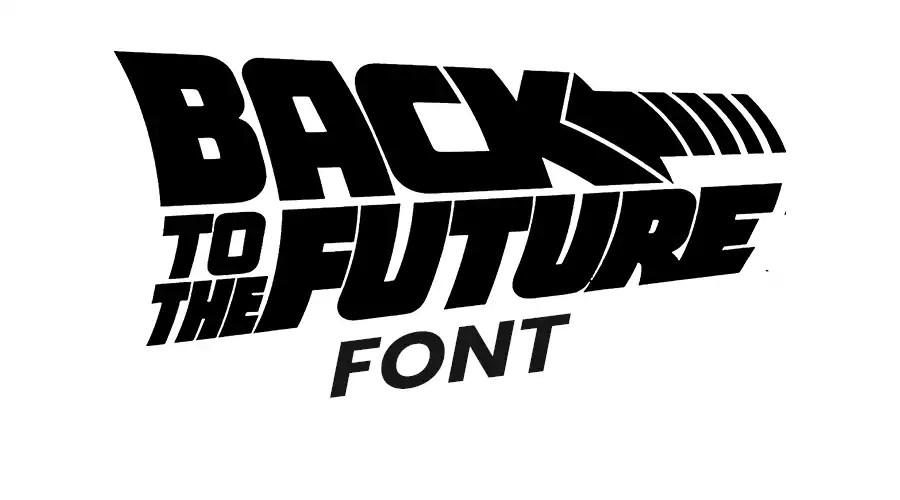
What Font Is Back To The Future . Back to the future 2002 font | dafont.com english français español deutsch italiano português. Download the font image for free and customize it with different styles, colors and backgrounds. What font was used in back to the future logo and posters? Download the font for free or use the online tool to customize your text with style, size and color effects. This font is designed by cyril bourreau. Back to the future 2002 is the font used in the movie back to the future. It was created by typography designer cyril bourreau and is intended. Create text graphics with the font used in the title of the back to the future film series. Learn about the font history, design and usage of this typeface created by cyril. Back to the future 2002 is a font inspired by the title lettering of the popular science fiction film series back to the future. Create cool graphics with the font used in the back to the future movie poster. Back to the future is one of the most successful science fiction fantasies we’ve ever seen, and the back to the future font is arguably the easiest. With our back to the future logo generator, you can design a logo that’s perfect for any occasion, whether you’re getting hyped for the back to the.
It was created by typography designer cyril bourreau and is intended. Learn about the font history, design and usage of this typeface created by cyril. With our back to the future logo generator, you can design a logo that’s perfect for any occasion, whether you’re getting hyped for the back to the. Create text graphics with the font used in the title of the back to the future film series. Back to the future 2002 is the font used in the movie back to the future. Create cool graphics with the font used in the back to the future movie poster. Back to the future 2002 is a font inspired by the title lettering of the popular science fiction film series back to the future. This font is designed by cyril bourreau. Download the font image for free and customize it with different styles, colors and backgrounds. Back to the future 2002 font | dafont.com english français español deutsch italiano português.
What Font Is Back To The Future Download the font image for free and customize it with different styles, colors and backgrounds. Back to the future is one of the most successful science fiction fantasies we’ve ever seen, and the back to the future font is arguably the easiest. With our back to the future logo generator, you can design a logo that’s perfect for any occasion, whether you’re getting hyped for the back to the. This font is designed by cyril bourreau. Back to the future 2002 is the font used in the movie back to the future. Download the font for free or use the online tool to customize your text with style, size and color effects. It was created by typography designer cyril bourreau and is intended. What font was used in back to the future logo and posters? Create cool graphics with the font used in the back to the future movie poster. Back to the future 2002 font | dafont.com english français español deutsch italiano português. Back to the future 2002 is a font inspired by the title lettering of the popular science fiction film series back to the future. Create text graphics with the font used in the title of the back to the future film series. Download the font image for free and customize it with different styles, colors and backgrounds. Learn about the font history, design and usage of this typeface created by cyril.
Back to the Future™ Trilogy What Font Is Back To The Future Back to the future 2002 font | dafont.com english français español deutsch italiano português. Learn about the font history, design and usage of this typeface created by cyril. Back to the future 2002 is the font used in the movie back to the future. Back to the future 2002 is a font inspired by the title lettering of the popular. What Font Is Back To The Future.
Back to the Future Part II (1989) Backdrops — The Movie Database (TMDB) What Font Is Back To The Future It was created by typography designer cyril bourreau and is intended. Download the font image for free and customize it with different styles, colors and backgrounds. Back to the future 2002 is the font used in the movie back to the future. With our back to the future logo generator, you can design a logo that’s perfect for any occasion,. What Font Is Back To The Future.
Back To The Future Logos FREE PNG Logos What Font Is Back To The Future It was created by typography designer cyril bourreau and is intended. What font was used in back to the future logo and posters? Create cool graphics with the font used in the back to the future movie poster. Download the font image for free and customize it with different styles, colors and backgrounds. Back to the future is one of. What Font Is Back To The Future.
Where was Back to The Future 3 Filmed in Utah What Font Is Back To The Future Back to the future 2002 is the font used in the movie back to the future. Download the font for free or use the online tool to customize your text with style, size and color effects. Create cool graphics with the font used in the back to the future movie poster. It was created by typography designer cyril bourreau and. What Font Is Back To The Future.